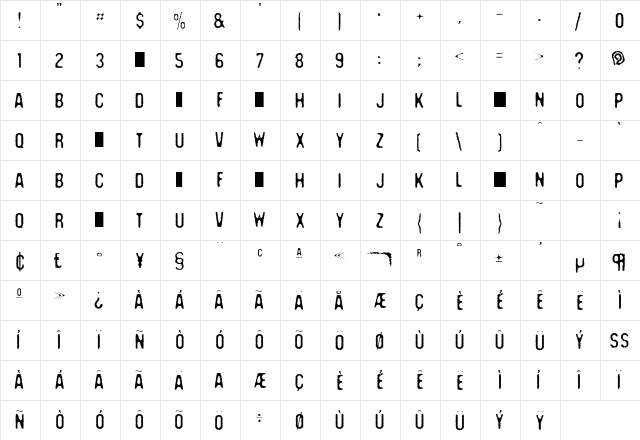
Crack DEMO Font Preview
Crack DEMO
Crack DEMO Font Details
Design Context for Crack Typeface
Crack is a composed and adaptable typeface that performs quietly and consistently across a wide range of design contexts.